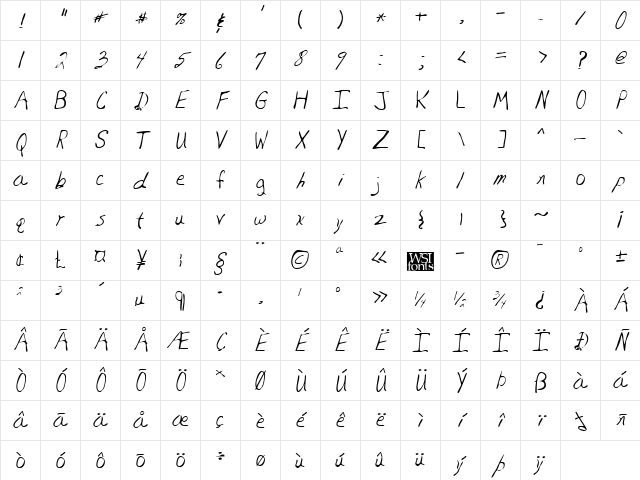
EdmondsHand Regular Free Font
EdmondsHand Regular
Design Context for EdmondsHand
EdmondsHand flows with the natural rhythm of handwritten lettering, making it ideal for designs that call for warmth and personal expression.
Font Pairing: Combine EdmondsHand with a simple geometric sans for maximum contrast - the tension between flowing curves and clean structure is a classic typographic pairing.
Pro Tip: Use EdmondsHand for short runs of text - names, titles, or taglines. Extended body copy in script faces tires the eye quickly.